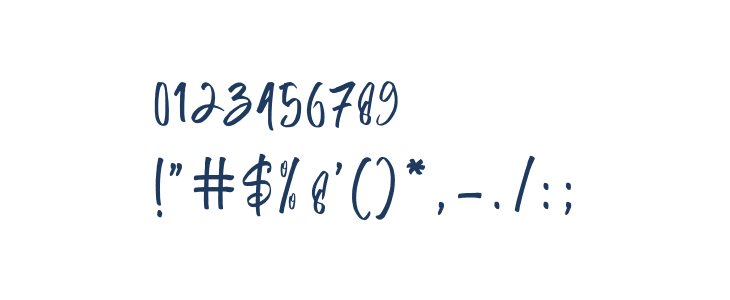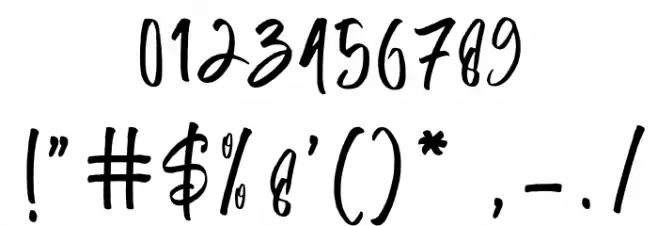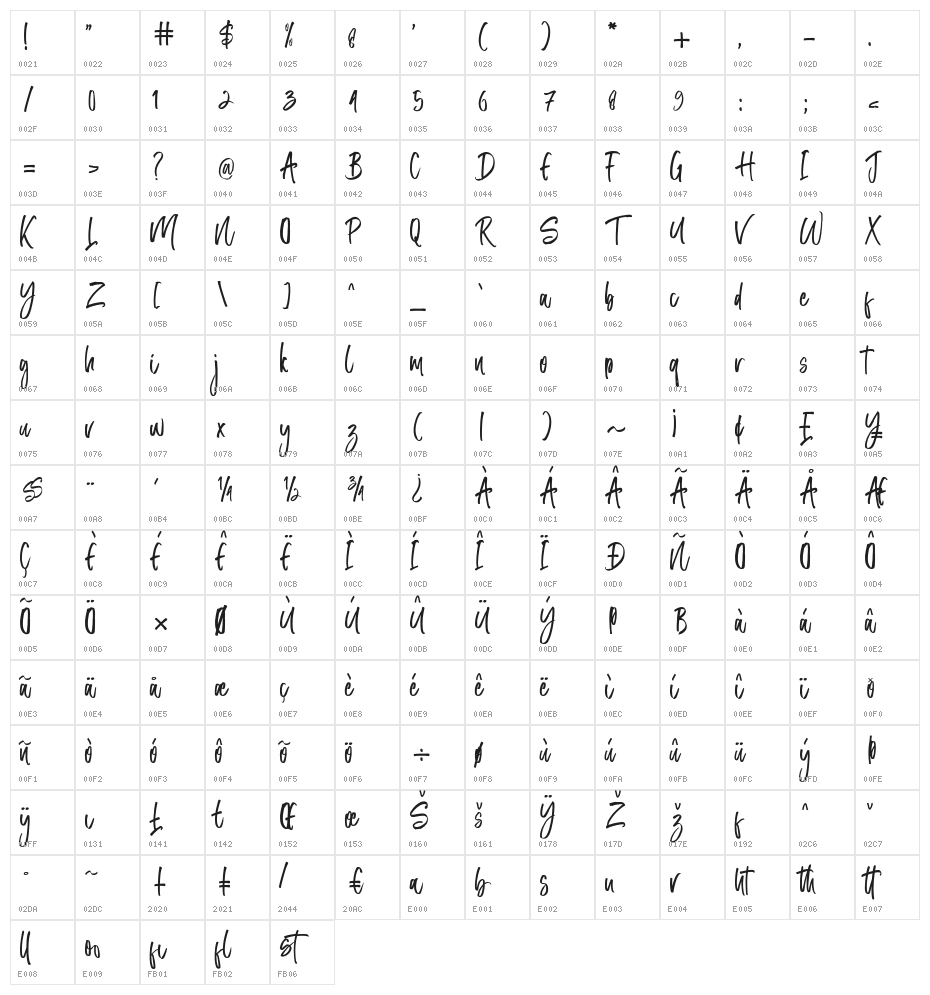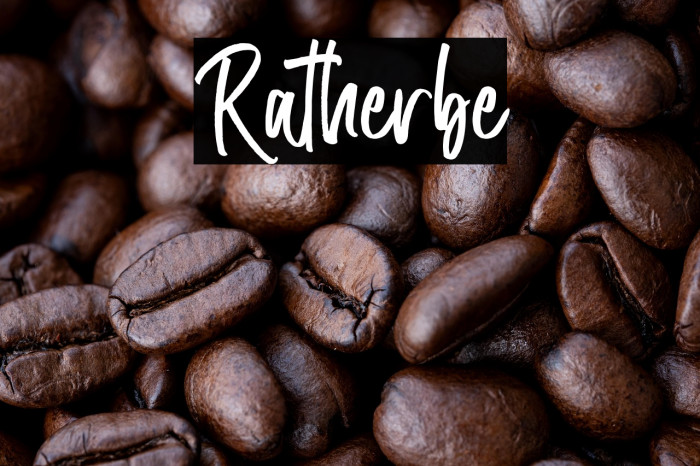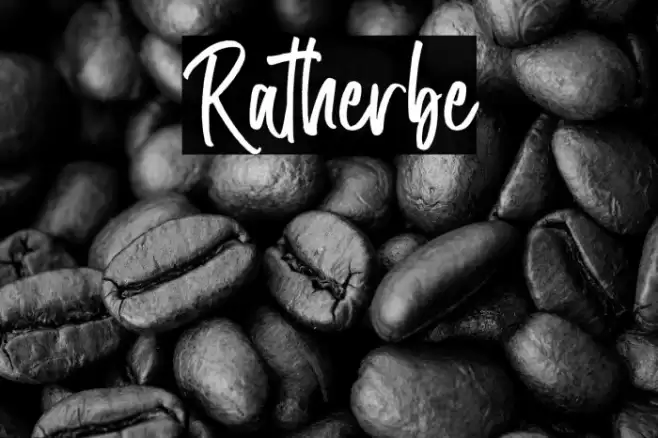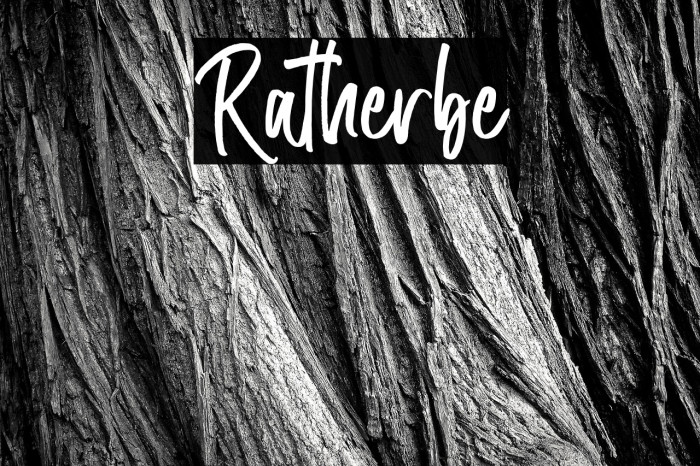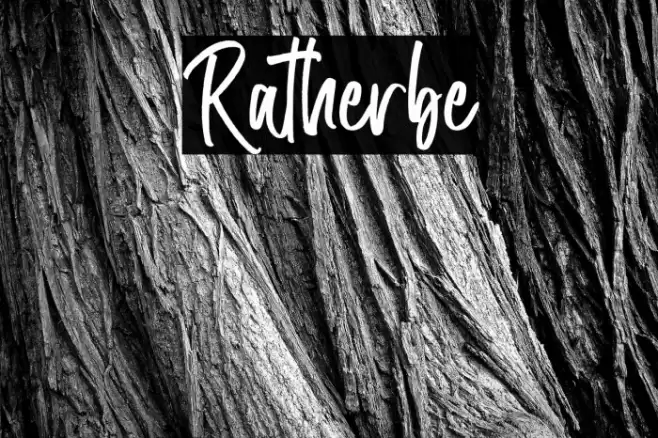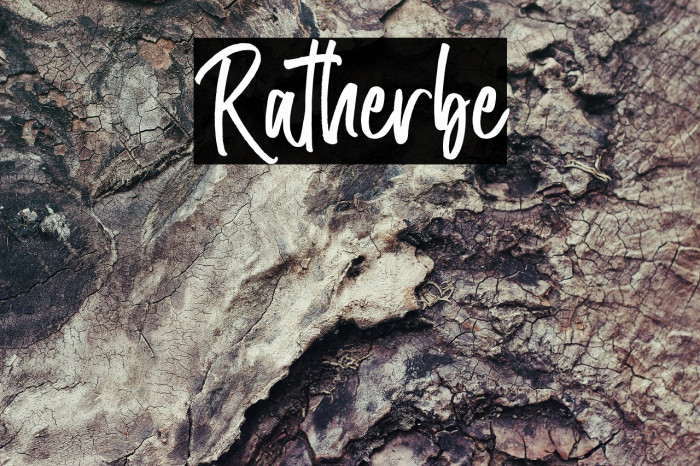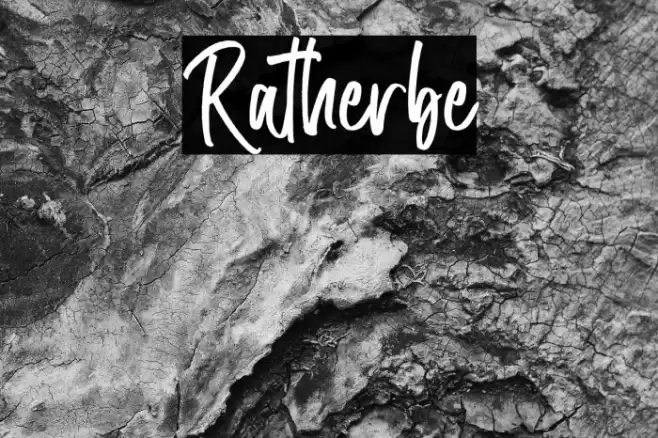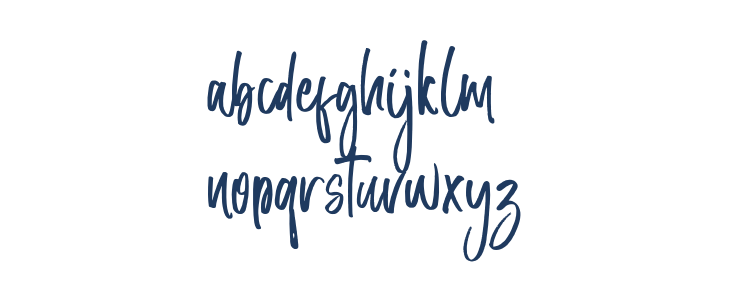
Ratherbe Font
Ratherbe Description
This font exudes a lively and energetic vibe with its handwritten style. The letters are characterized by their fluid, cursive strokes, giving a sense of motion and personality. The uppercase letters are bold and slightly slanted, while the lowercase letters maintain a consistent flow with a playful touch. Numbers and special characters follow the same dynamic style, enhancing the font's cohesive look. The overall appearance is informal yet stylish, making it suitable for creative and expressive projects.
| Proposed Projects | Ideal for greeting cards, invitations, personal branding, and creative social media graphics. |